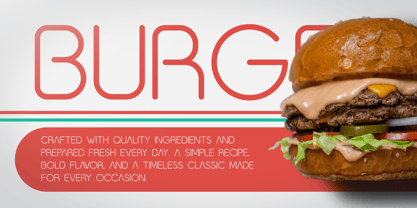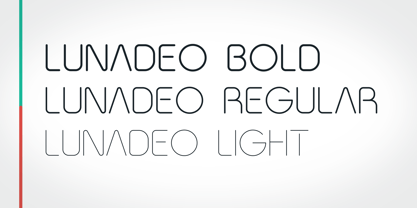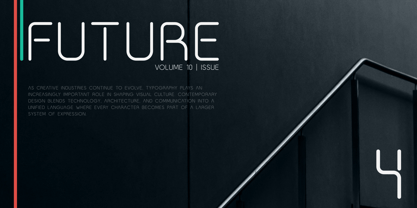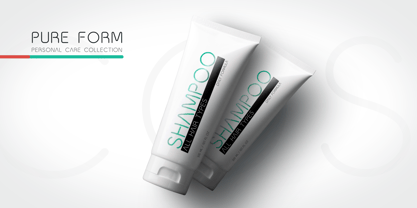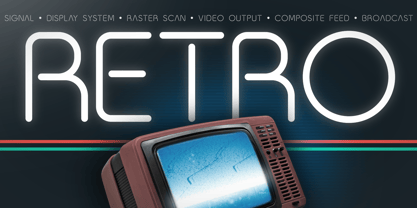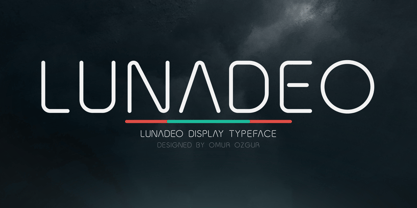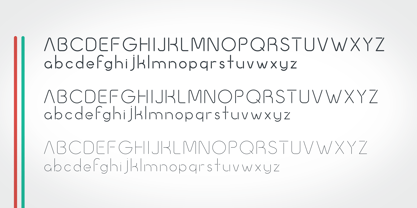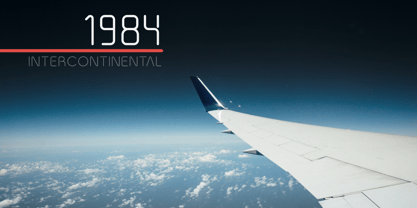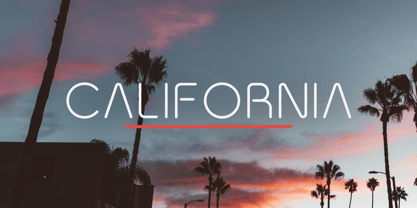
Lunadeo
Lunadeo is a contemporary display typeface inspired by the visual language of retro technology, urban culture, and modern branding. Designed with strong geometric forms and a distinctive character, it combines a nostalgic atmosphere with a clean and expressive appearance.
Created for impactful headlines and visual identities, Lunadeo works beautifully across posters, logos, packaging, editorial layouts, digital interfaces, and creative branding projects. Its bold shapes and carefully balanced proportions make it suitable for both modern and retro-inspired designs.
The family includes Light, Regular, and Bold styles, offering flexibility for creating contrast and hierarchy within layouts. With its unique personality and versatile display presence, Lunadeo brings a confident visual voice to creative projects.